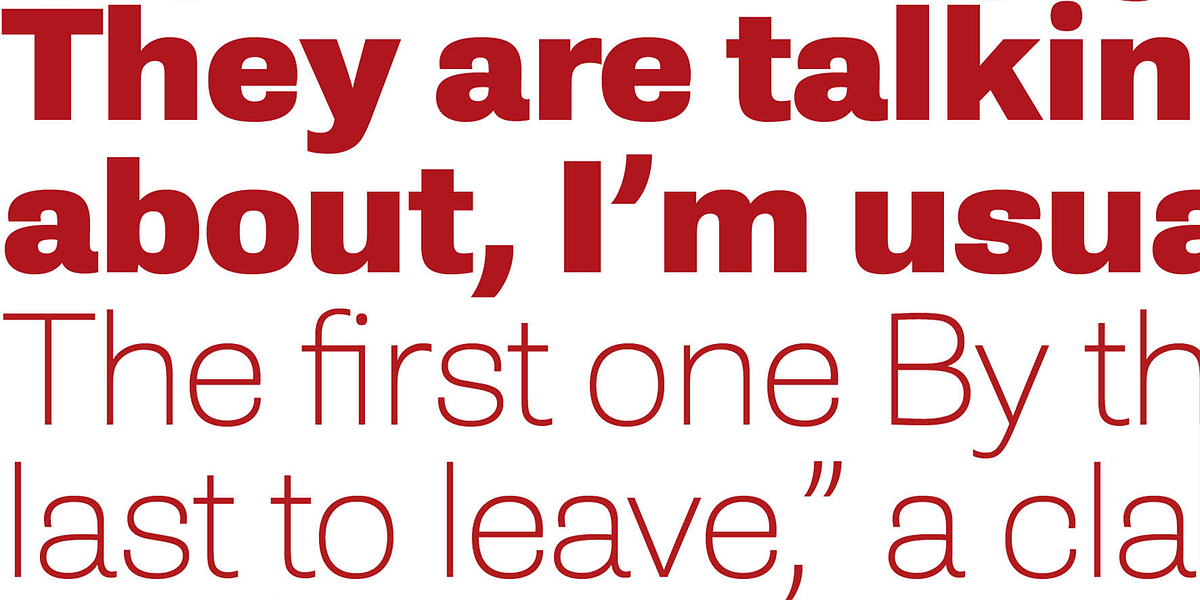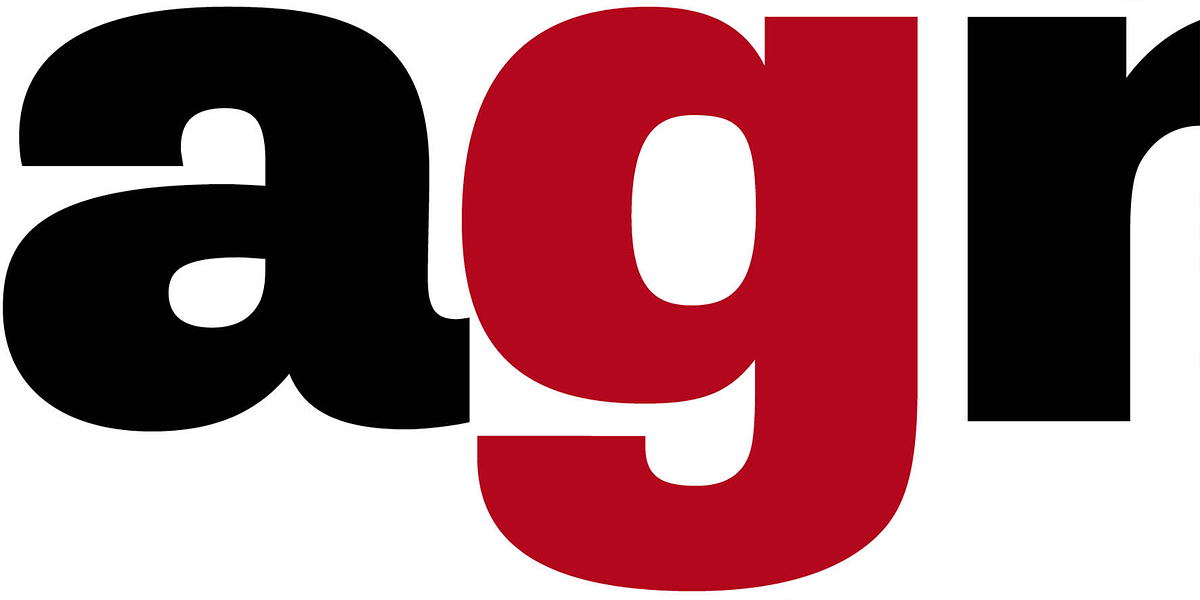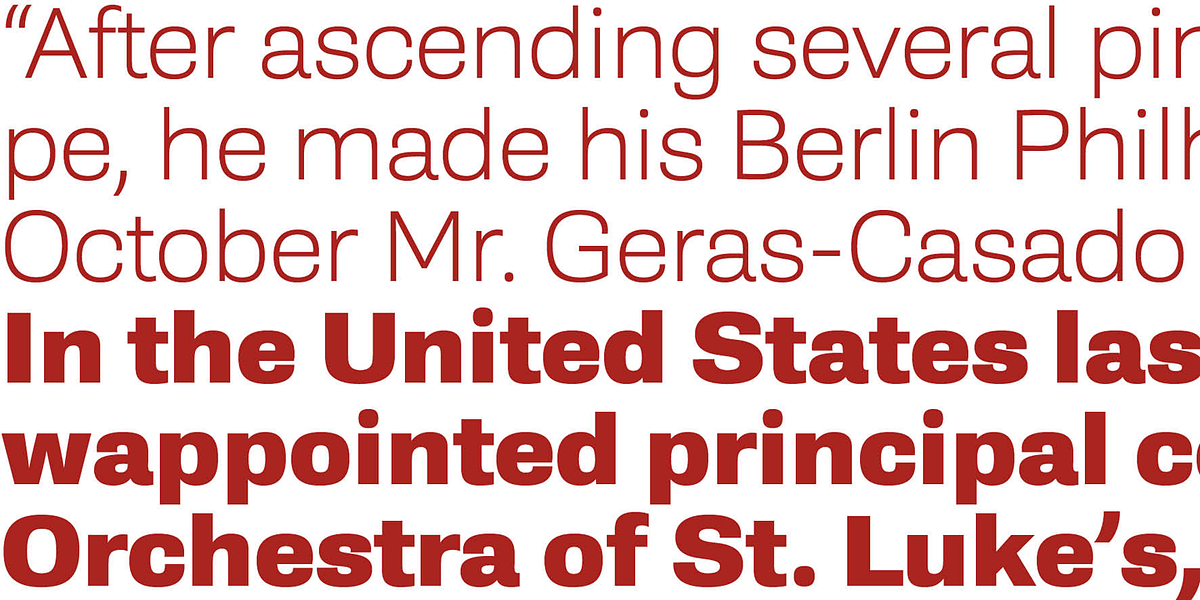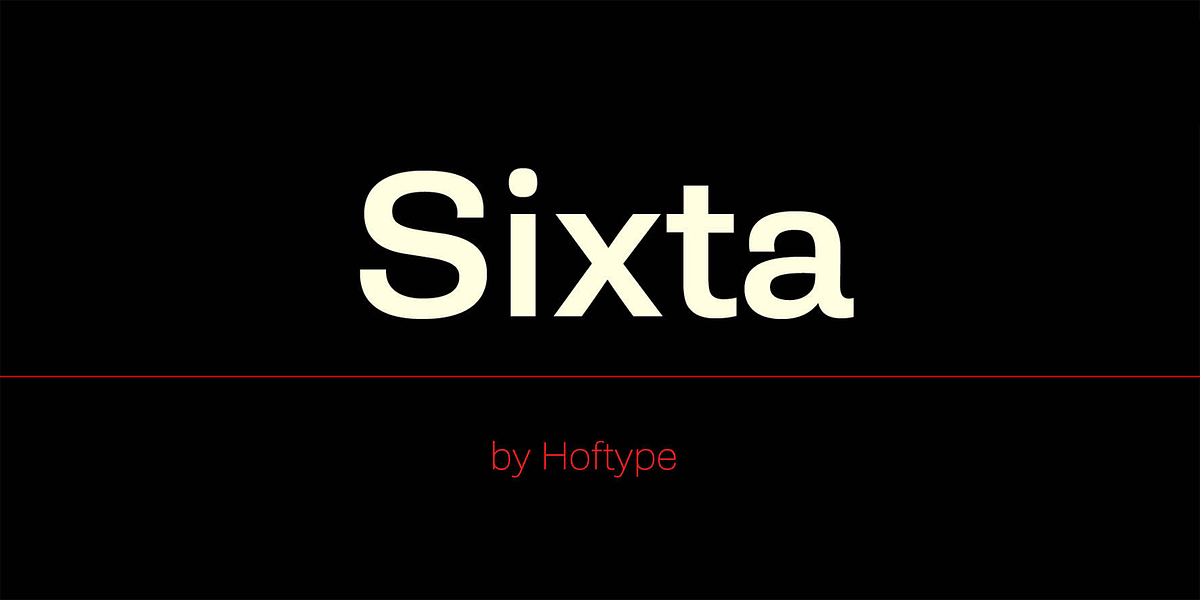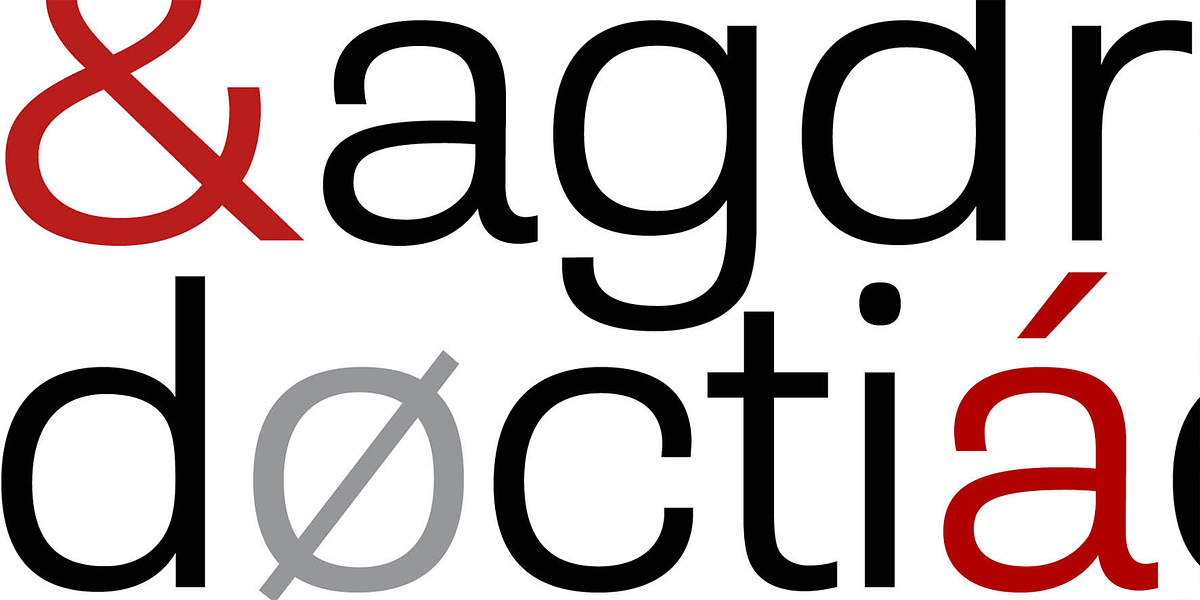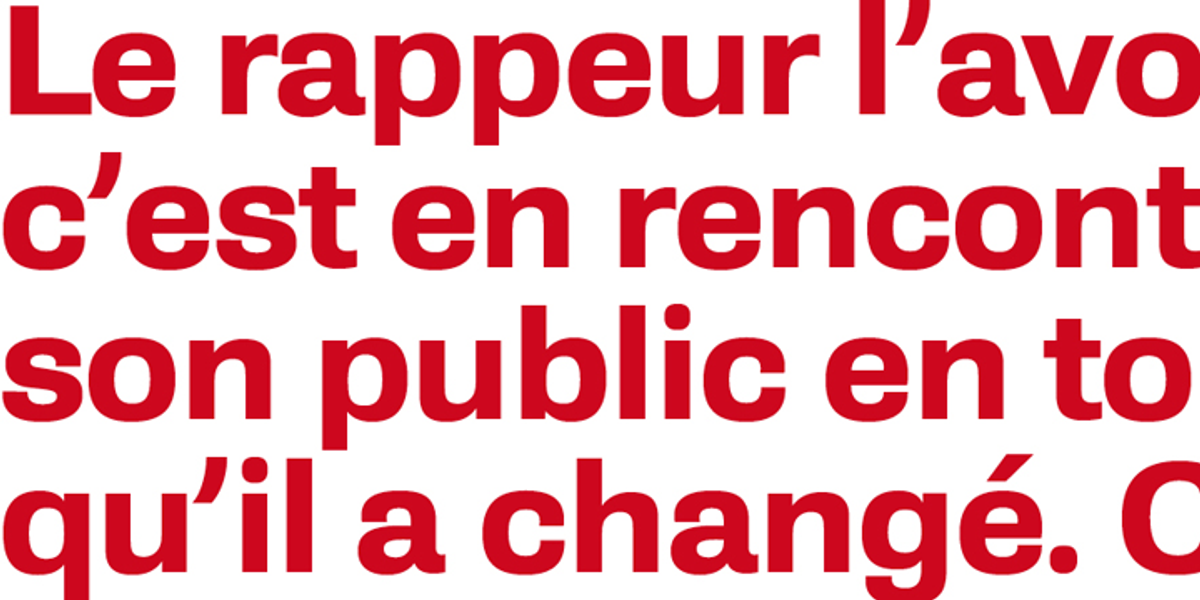
Sixta
Sixta is a neo-grotesque sans serif font characterized by its monoline design and classical influences. It offers a balance of elegance and power, making it suitable for both text and display applications. The font includes a wide range of weights and supports over 40 languages.